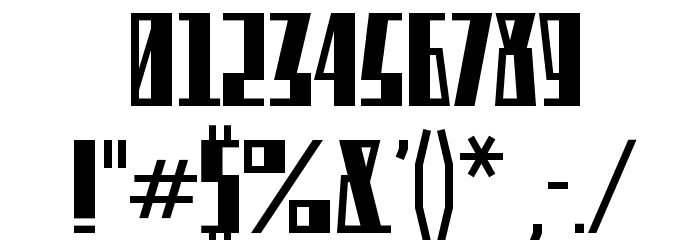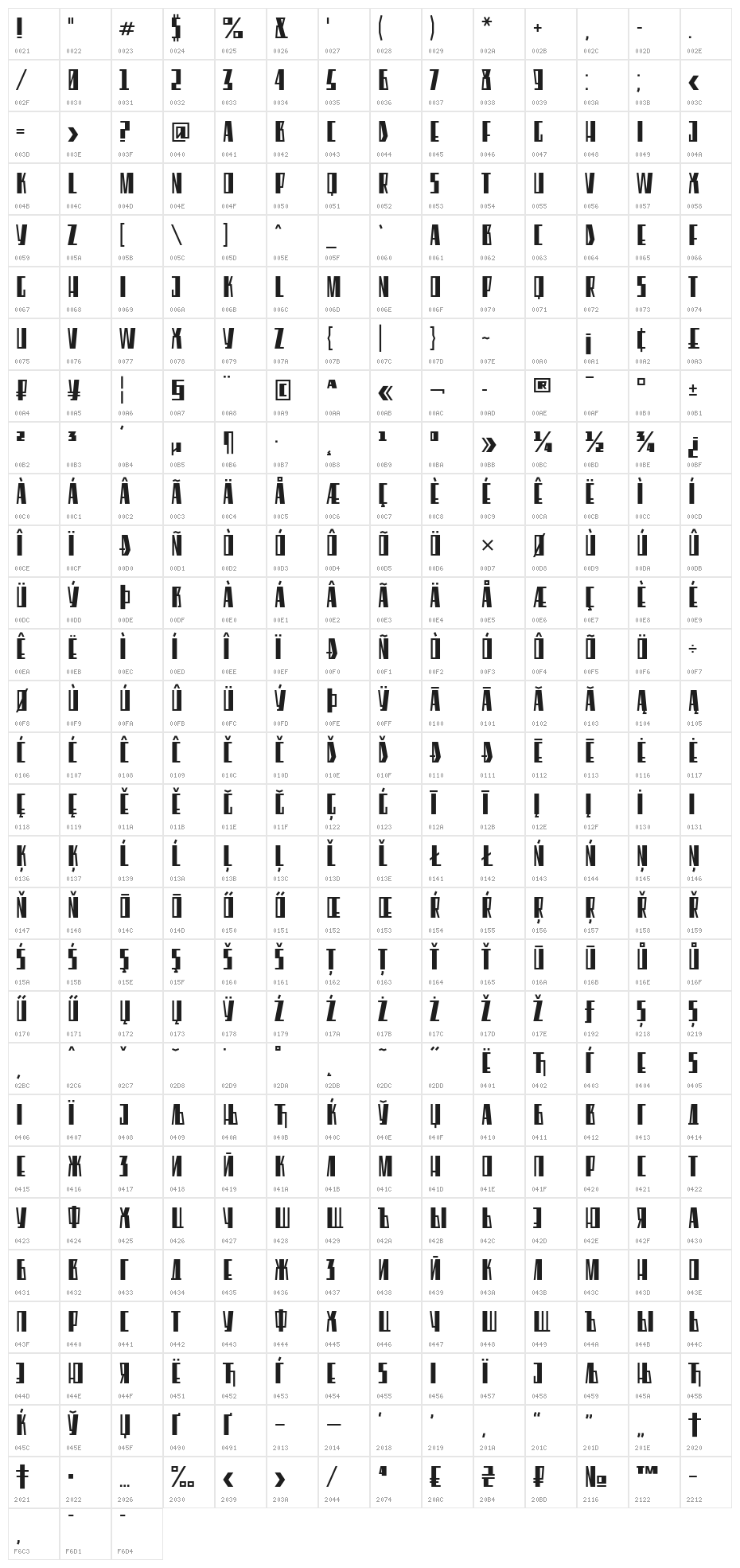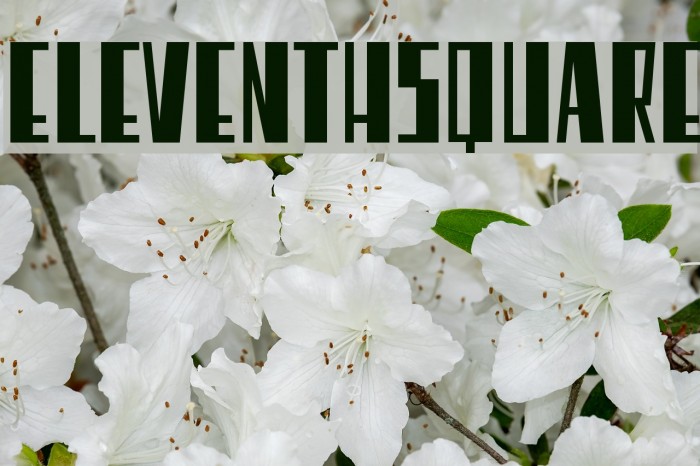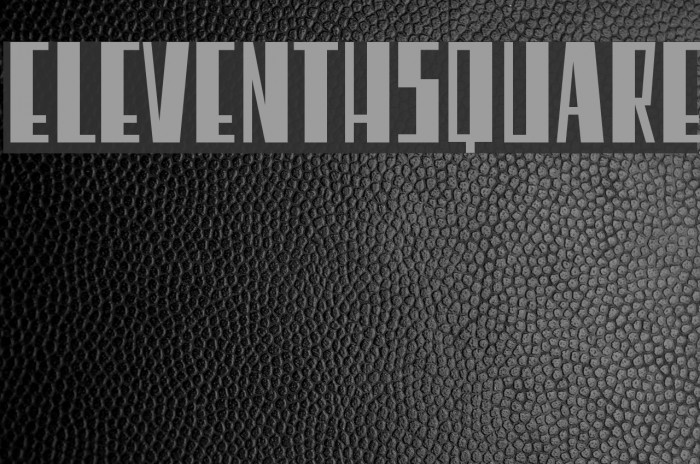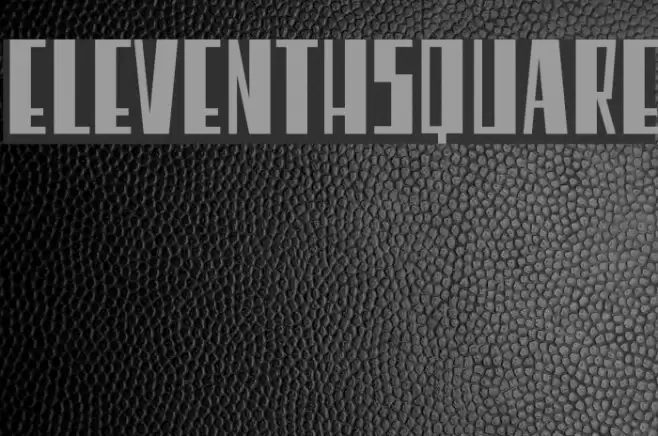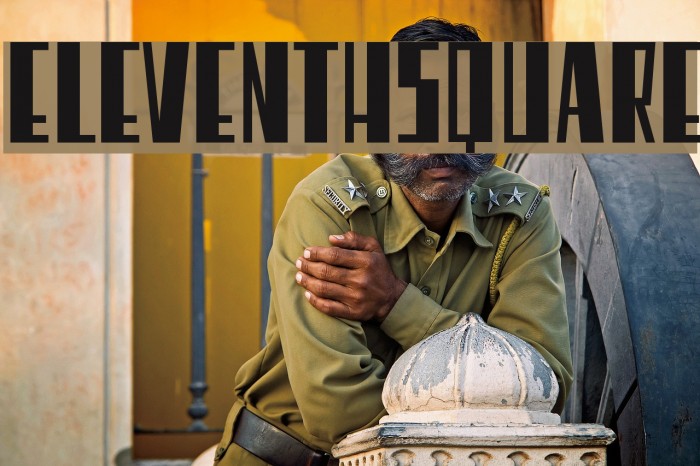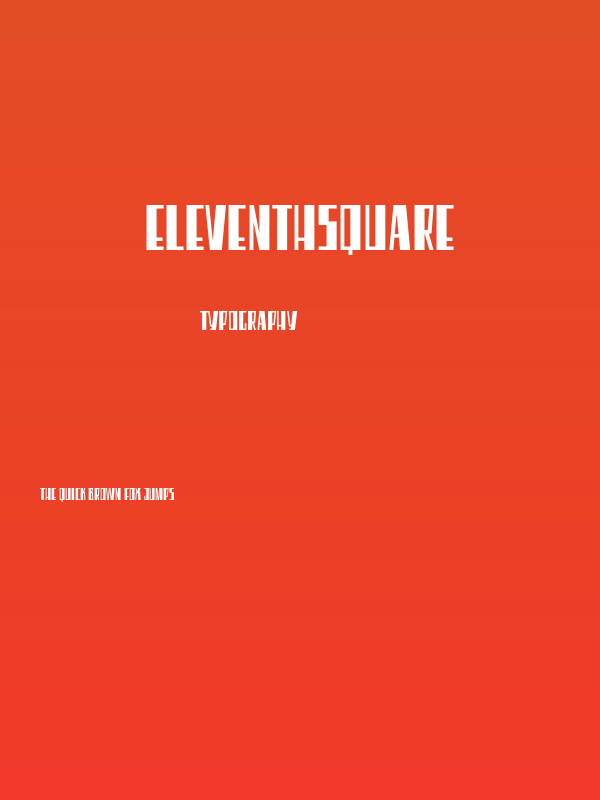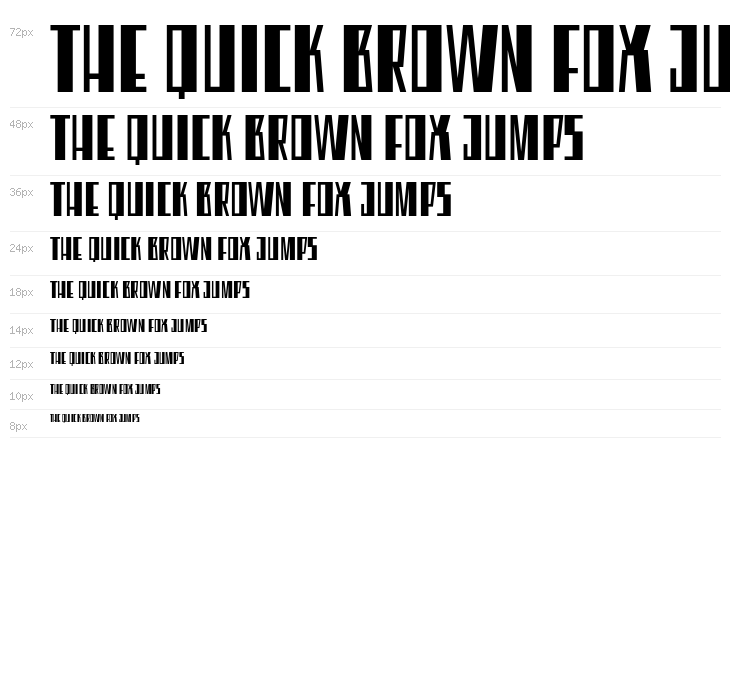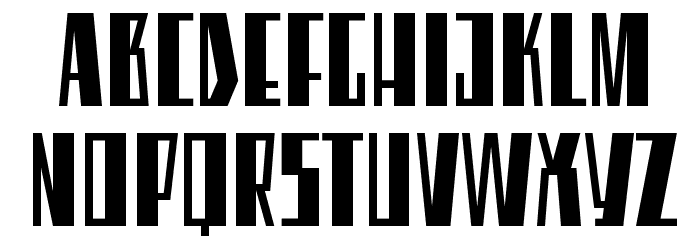
EleventhSquare Font
EleventhSquare Description
This font features a bold and striking design with sharp, angular edges and a geometric structure. The uppercase letters are tall and narrow, creating a sense of height and strength. The lowercase letters maintain the same angular style, ensuring consistency throughout the typeface. Numbers are equally bold, with a uniform width that complements the overall design. Special characters are designed with the same attention to detail, making them stand out while remaining cohesive with the rest of the font. This typeface is perfect for projects that require a modern and impactful look.
| Proposed Projects | Ideal for branding, posters, headlines, and any project needing a strong visual impact. |